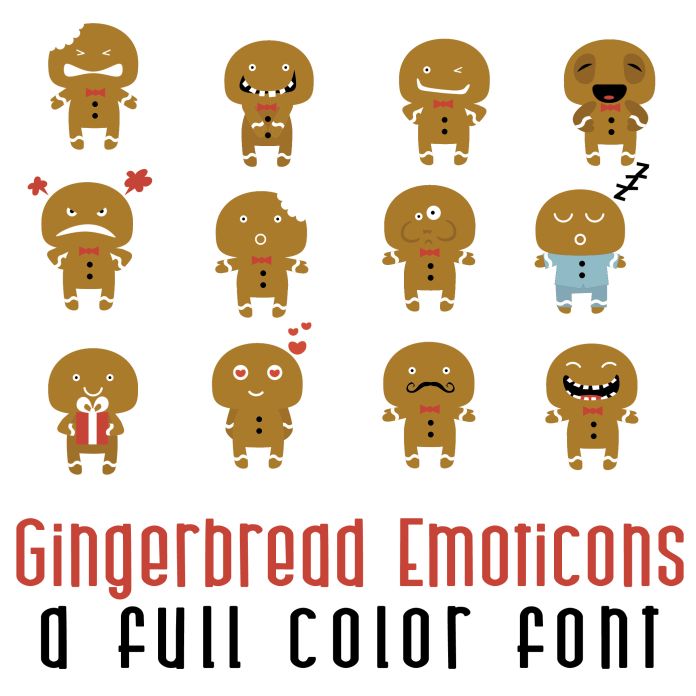
This fun full color font features 26 adorable gingerbread emoticons. Perfect for cards, crafts, gifts, decor, planner stickers, scrapbook pages, classrooms and more!